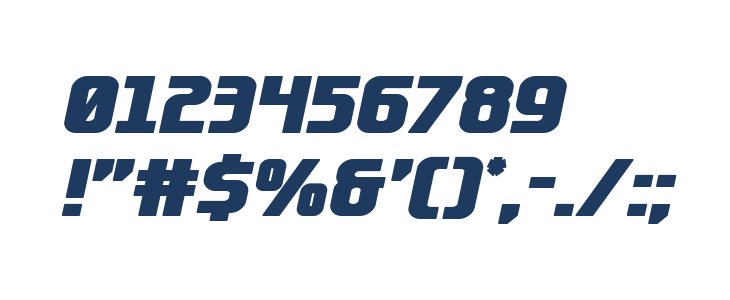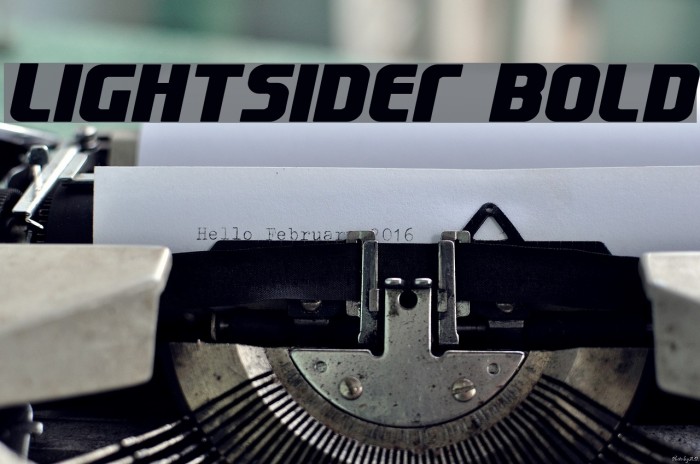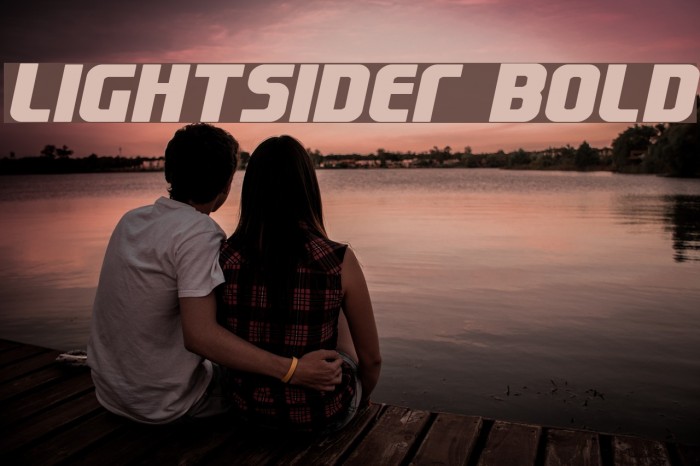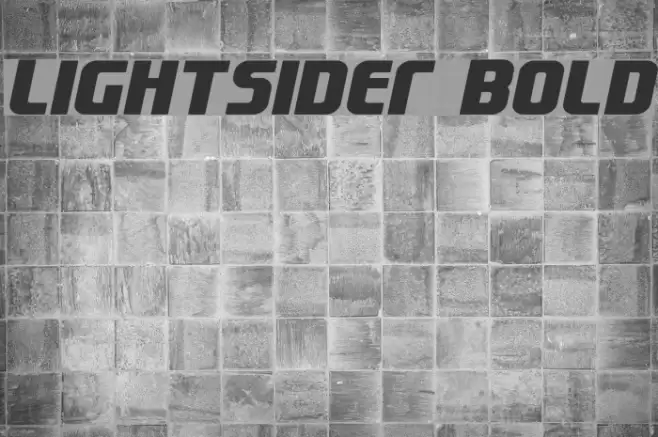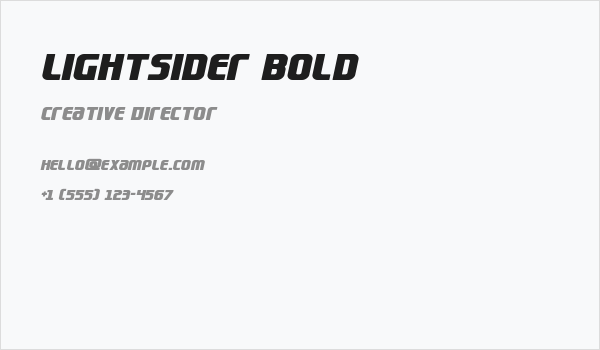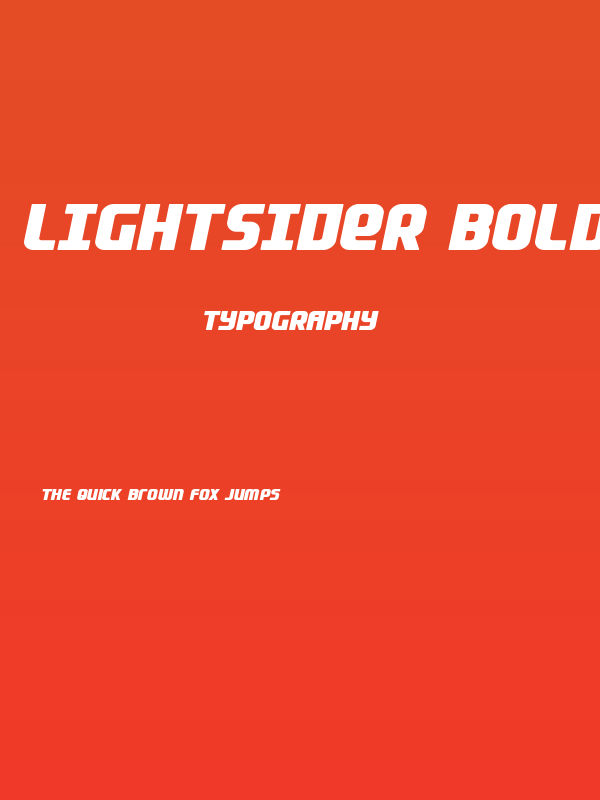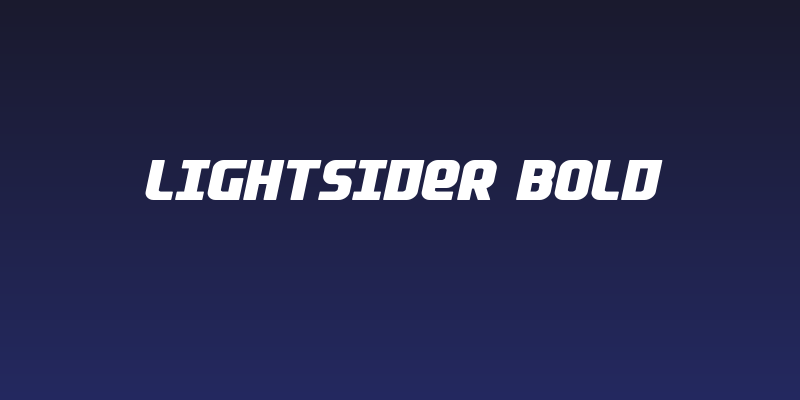
Lightsider Bold Font
Lightsider Bold Description
This font features a bold and dynamic style with a modern, futuristic appeal. The characters are slightly slanted, giving a sense of motion and energy. The strokes are thick and consistent, providing a strong visual impact. The design is clean and geometric, with rounded edges that soften the overall look. This font is highly legible and stands out in any context, making it ideal for attention-grabbing headlines or branding materials. The numbers and special characters maintain the same bold and cohesive style, ensuring uniformity across all text elements.
| Proposed Projects | Ideal for branding, advertising, sports team logos, and futuristic designs. |